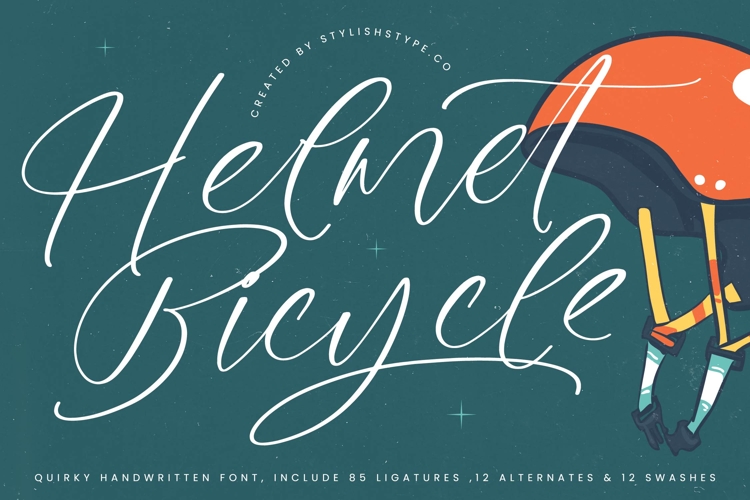
Helmet Bicycle - Quirky Handwritten Script
Helmet Bicycle is a quirky handwritten font that blends playful charm with elegant handwritten strokes. Its long, flowing curves, expressive ligatures, and dynamic swashes make it a versatile font suitable for both fun and sophisticated design projects. With 85 ligatures, 12 alternates, and 12 swashes, Helmet Bicycle gives designers the flexibility to create unique and stylish lettering compositions.
This font works wonderfully in branding. Perfect for logos, boutique shops, artisan goods, fashion labels, and lifestyle brands, Helmet Bicycle communicates authenticity and creativity. Its quirky handwritten style ensures that branding projects feel approachable, stylish, and memorable, making it a standout choice for modern businesses.
In editorial and publishing, Helmet Bicycle adds flair and personality. Magazines, book covers, event flyers, and creative zines benefit from its organic flow and elegant yet quirky touch. It creates editorial layouts that are visually engaging and artistic, making text stand out while staying legible.